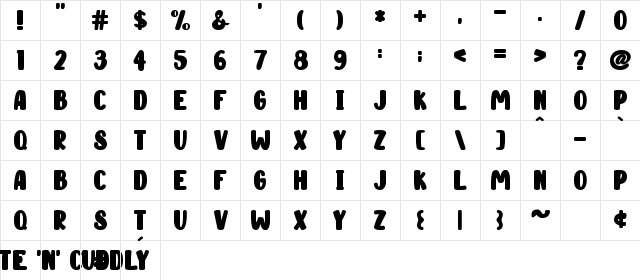
Cute 'n' Cuddly Regular
Designer: Joseph Dawson
Design Context for Cute 'n' Cuddly
Cute 'n' Cuddly is a composed and adaptable typeface that performs quietly and consistently across a wide range of design contexts.